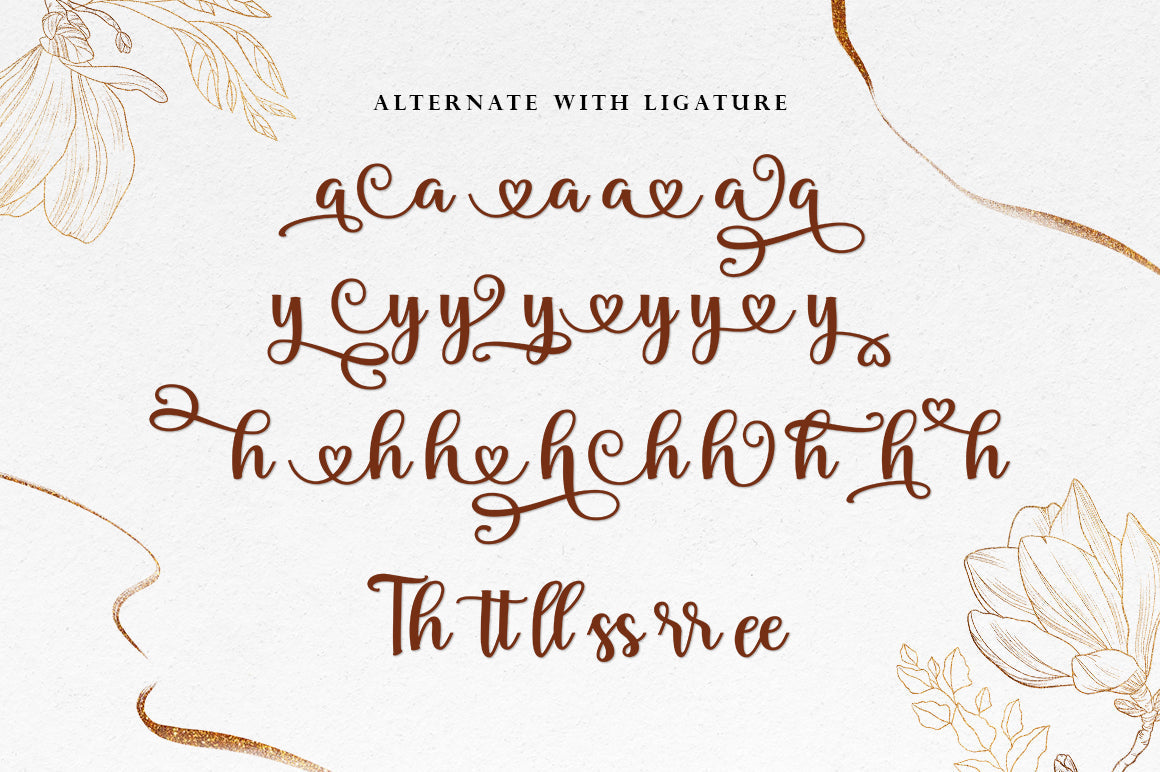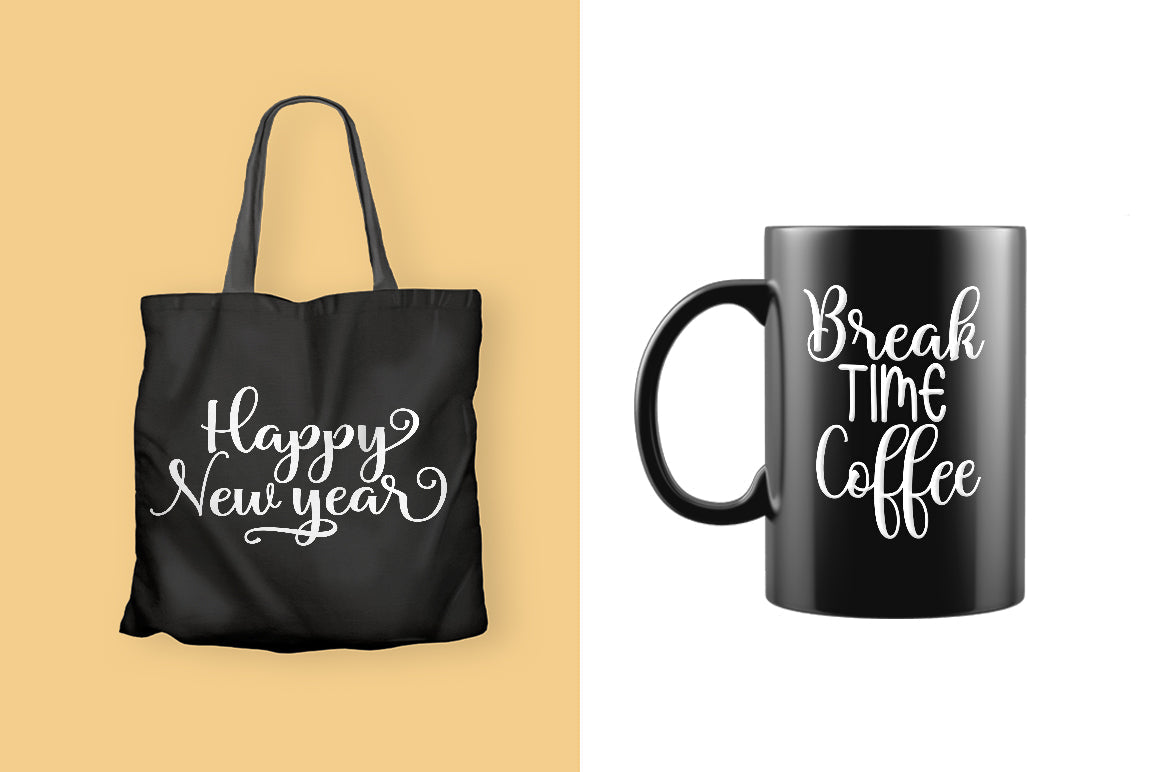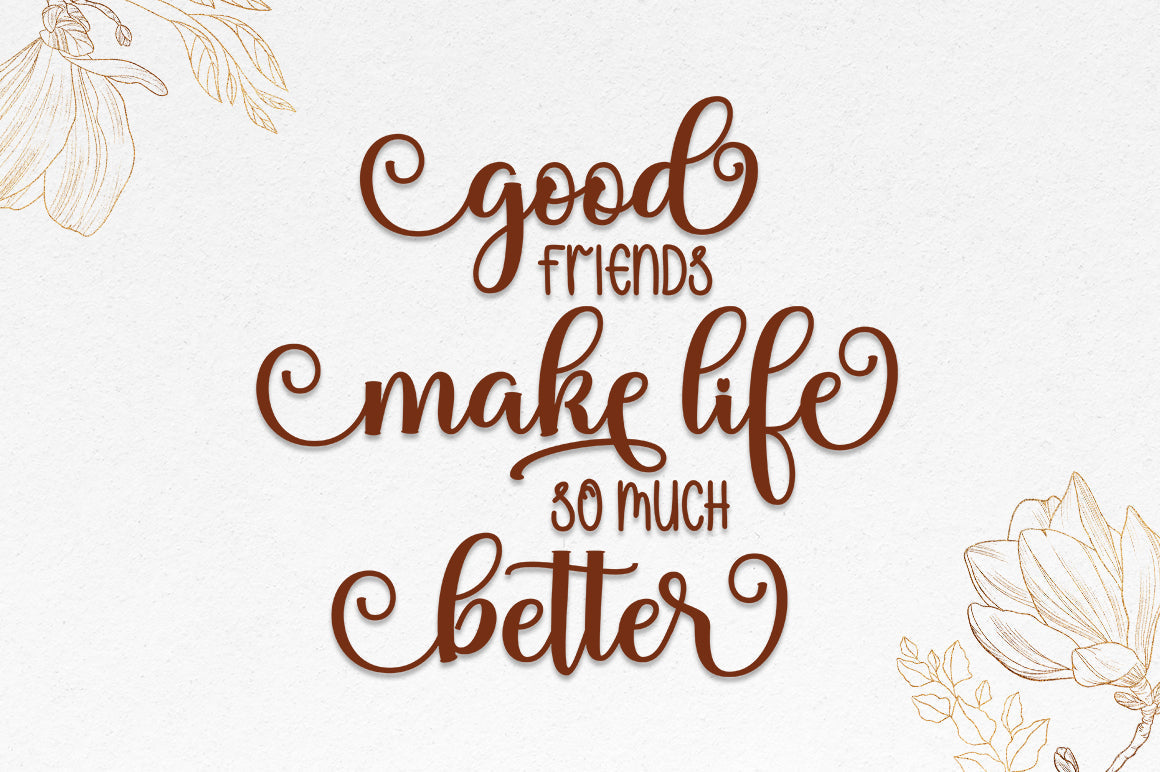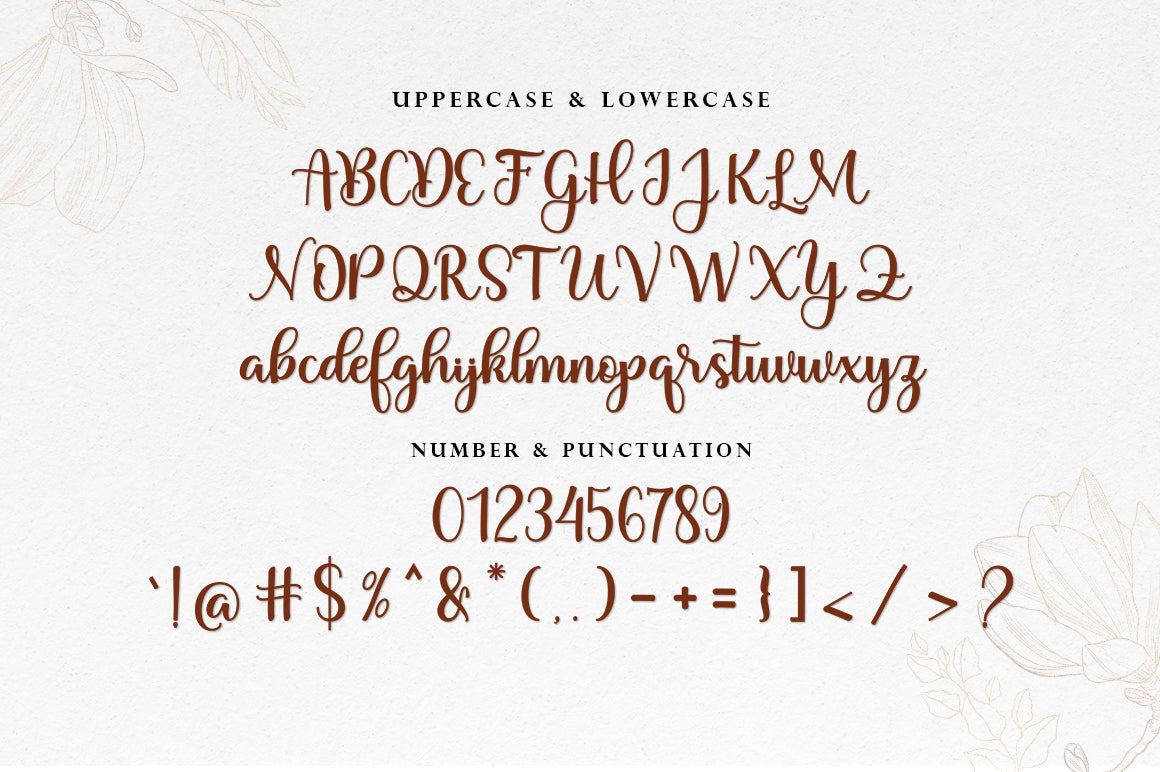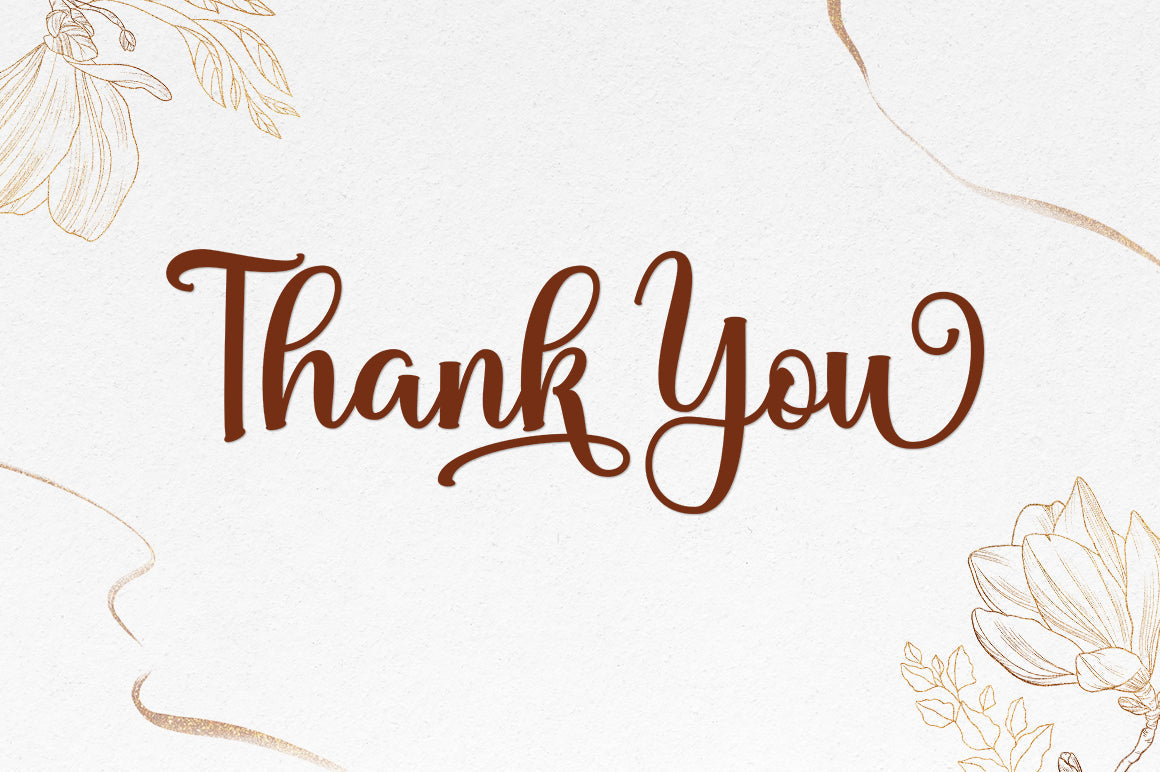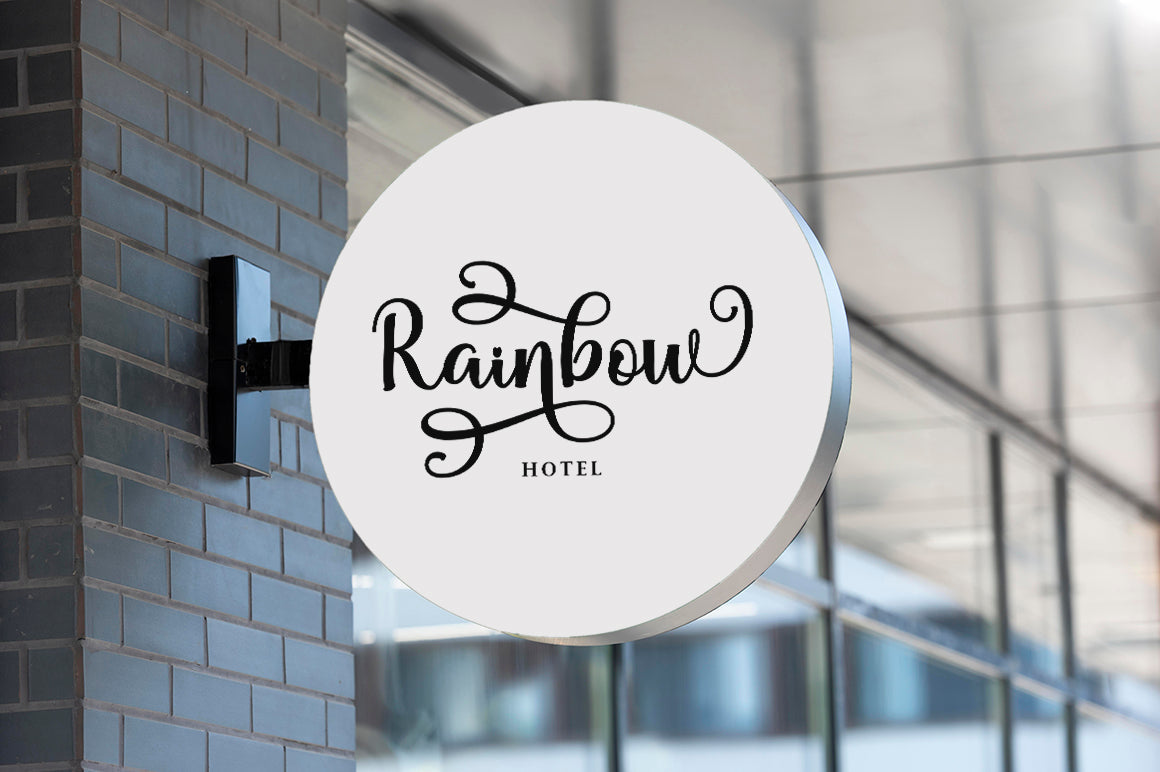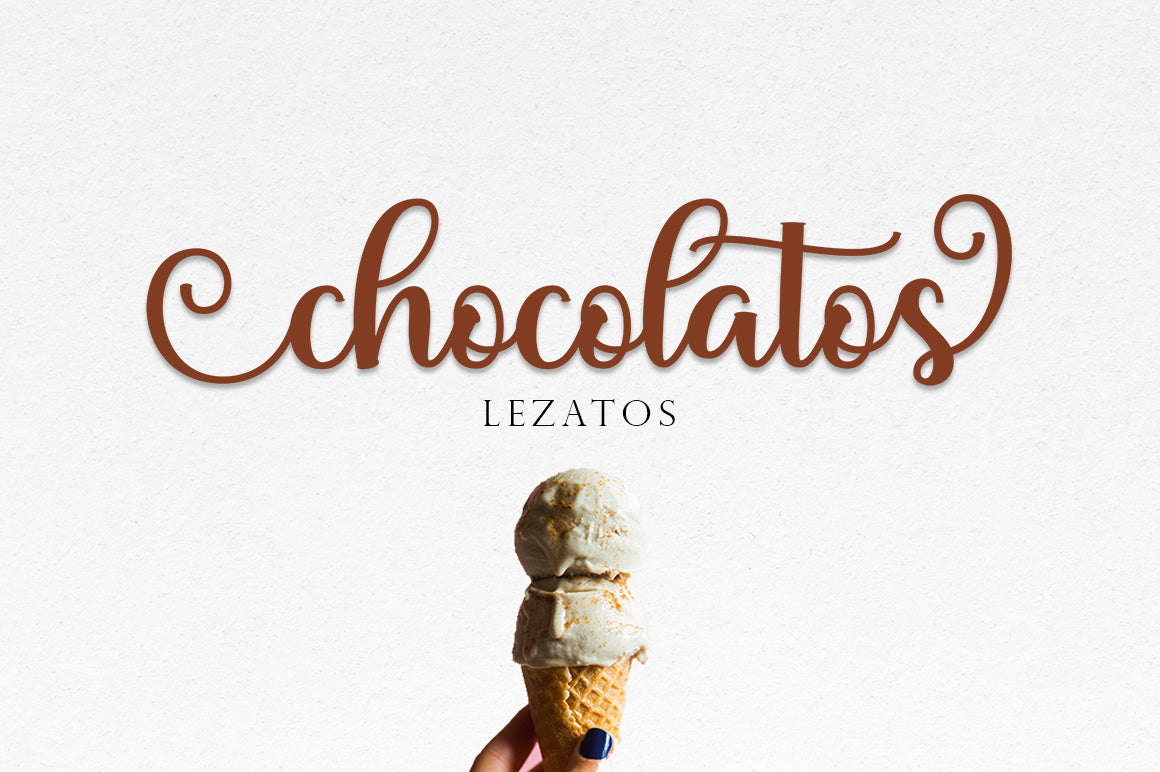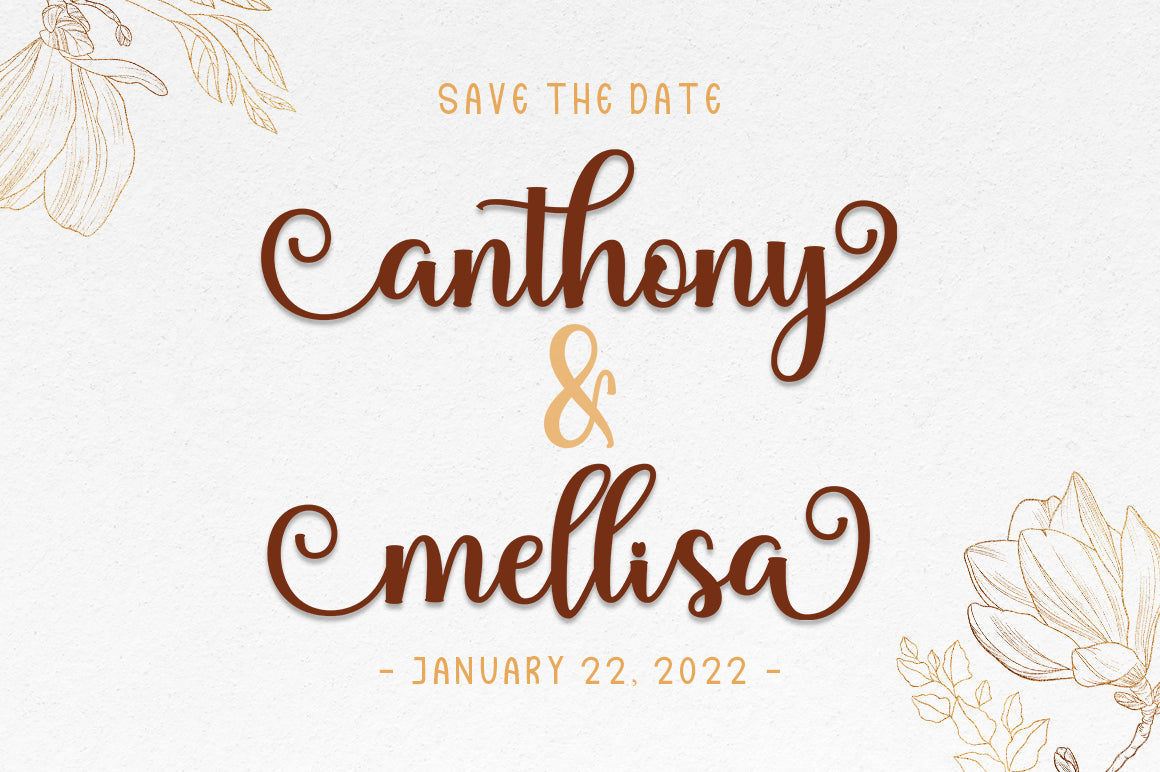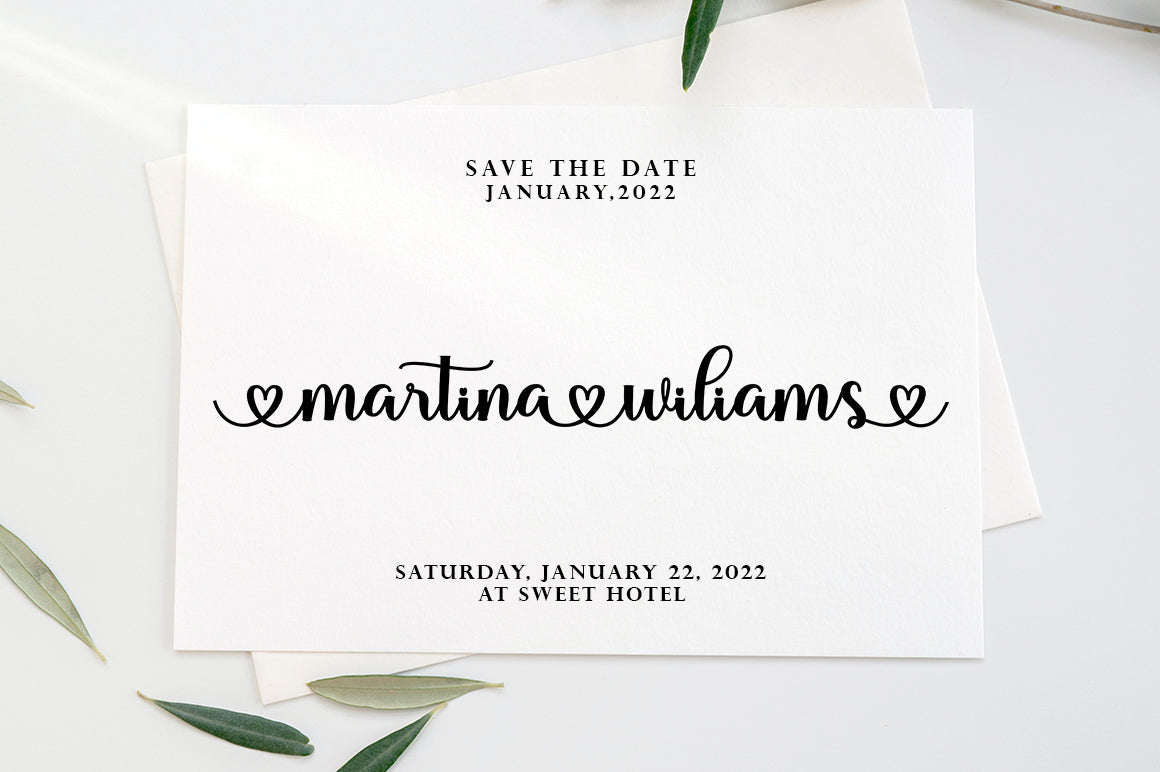
Blantone
About Blantone
Blantone Script is a soft and sweet calligraphic typeface, with the characters dancing along the baseline. It has a casual and elegant touch. Can be used for various purposes such as logos, wedding invitations, headings, t-shirts, letterheads, signage, labels, news, posters, badges etc. OpenType features with alternative styles, bindings, and multiple language support. To enable the OpenType Stylistic alternative, you need a program that supports OpenType features such as Adobe Illustrator CS, Adobe Indesign & CorelDraw X6-X7, Microsoft Word 2010 or a later version. How to access all alternative characters, using the Windows Character Map with Photoshop: https://www.youtube.com/watch?v=Go9vacoYmBw How to access all alternative characters using Adobe Illustrator: http://youtu.be/iptSFA7feQ0 There are additional ways to access alternatives/swashes, using the Character Map (Windows), Nexus Font (Windows), Font Book (Mac) or a software program such as PopChar (for Windows and Mac). Need help? If you need help or advice, please contact me by email. Thank You!